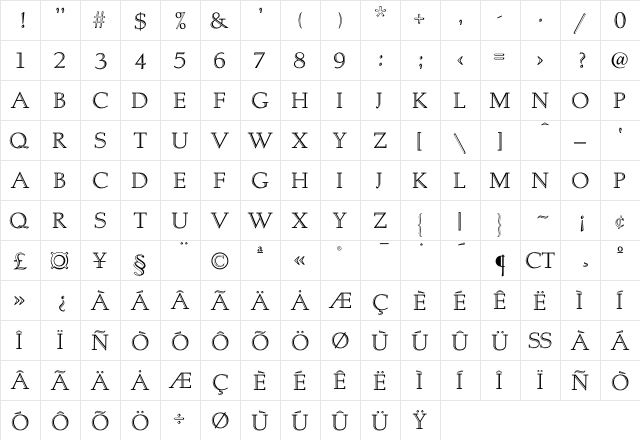
Albertan Inline
Design Context for Albertan Typeface
Albertan is built around its visual character rather than neutral utility — its distinctive forms are designed to make an impression at display sizes.
Font Pairing: Pair with a clean neutral sans-serif for body copy to let Albertan's character lead without overwhelming the composition.
Pro Tip: Use Albertan exclusively at display sizes — it was designed to be seen, not read at length. Let a neutral companion handle body copy.